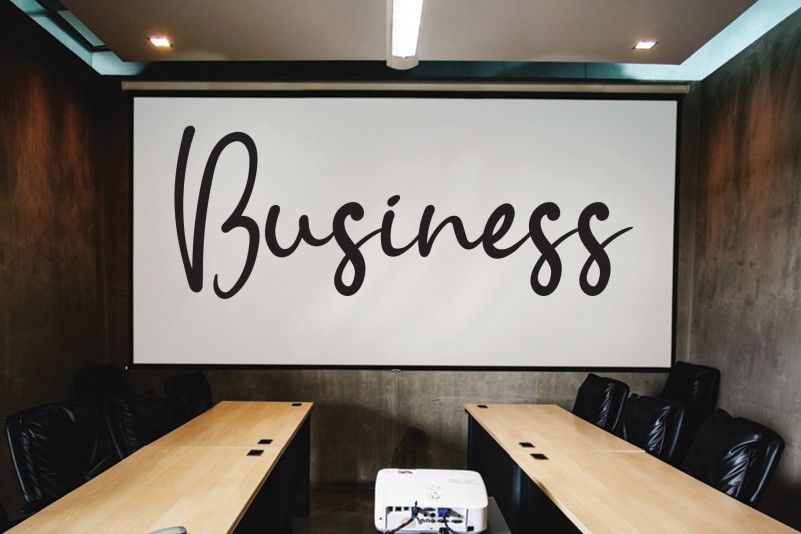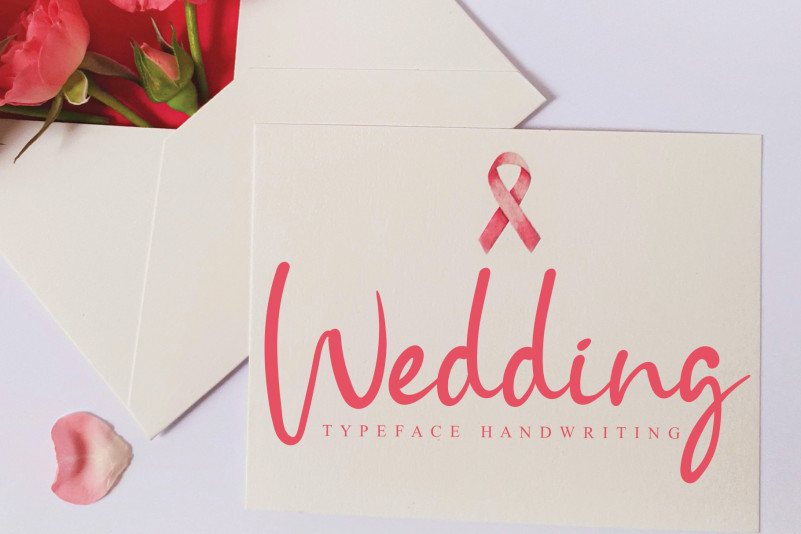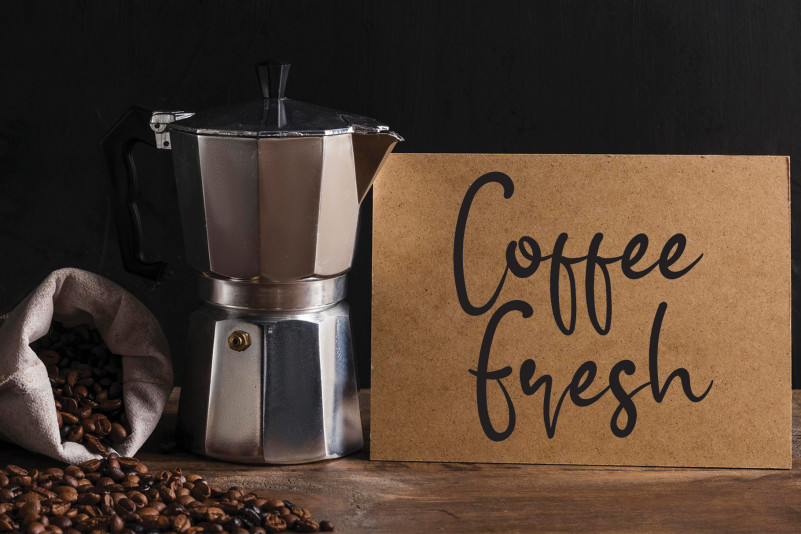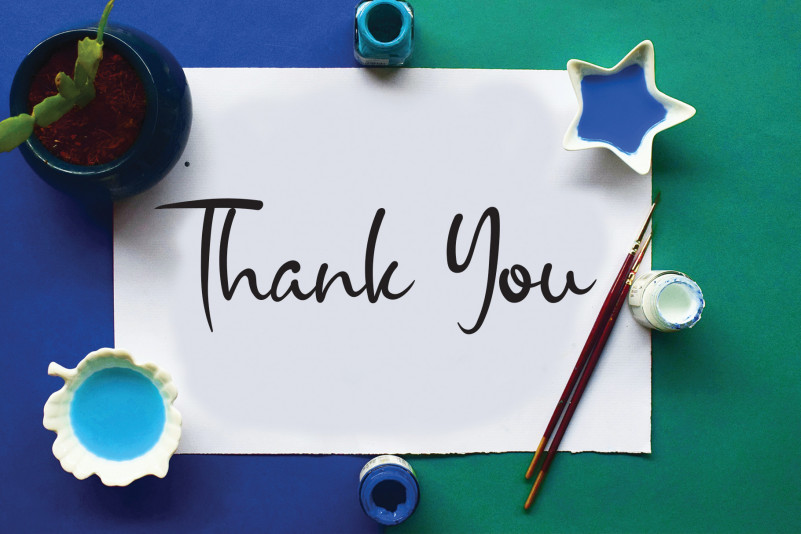
Lavender Script Font
Lavender Script Font is a relaxed and sweet handwritten font. Stylish and smooth, this font will make your creations look like real works of art!